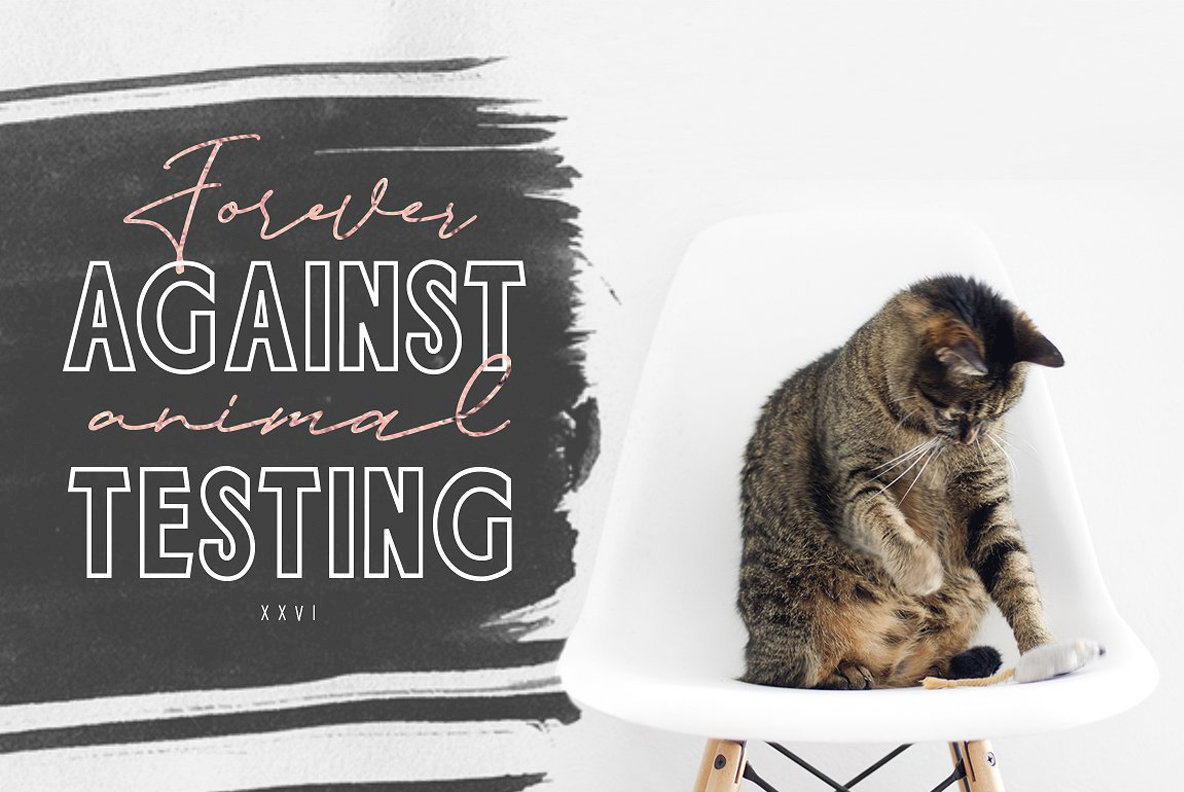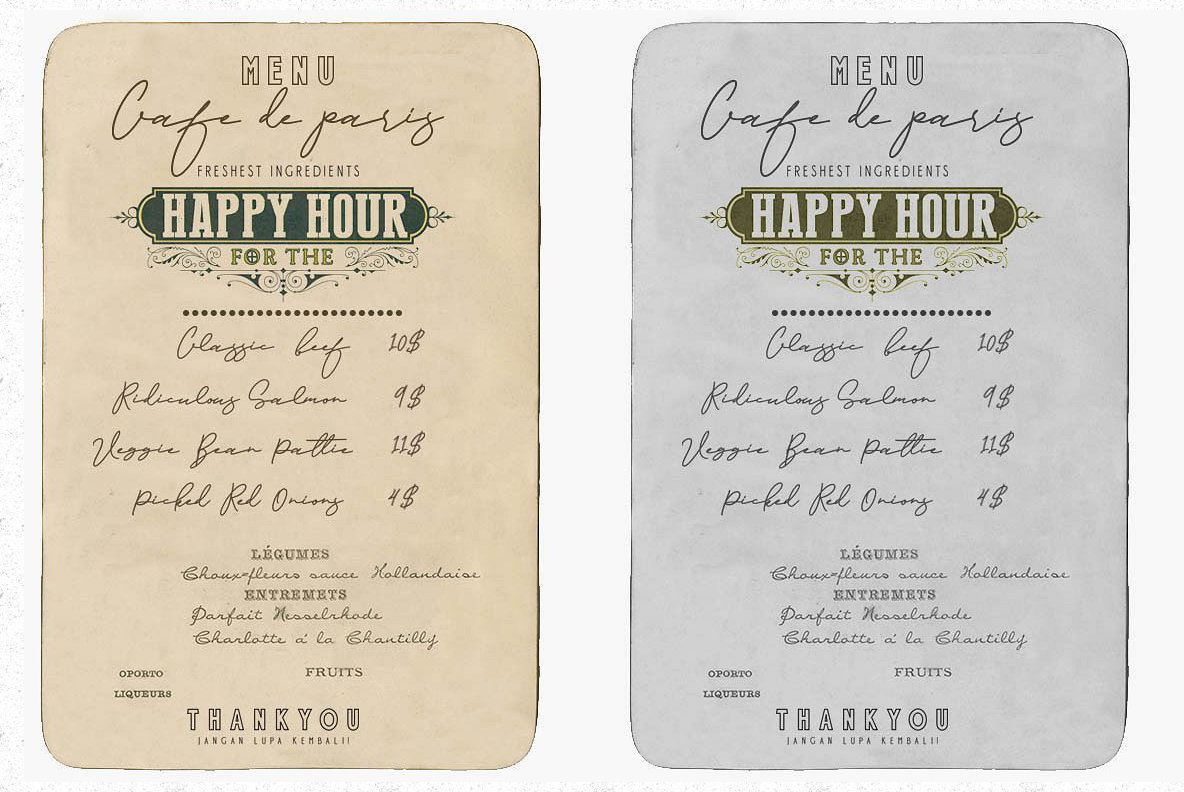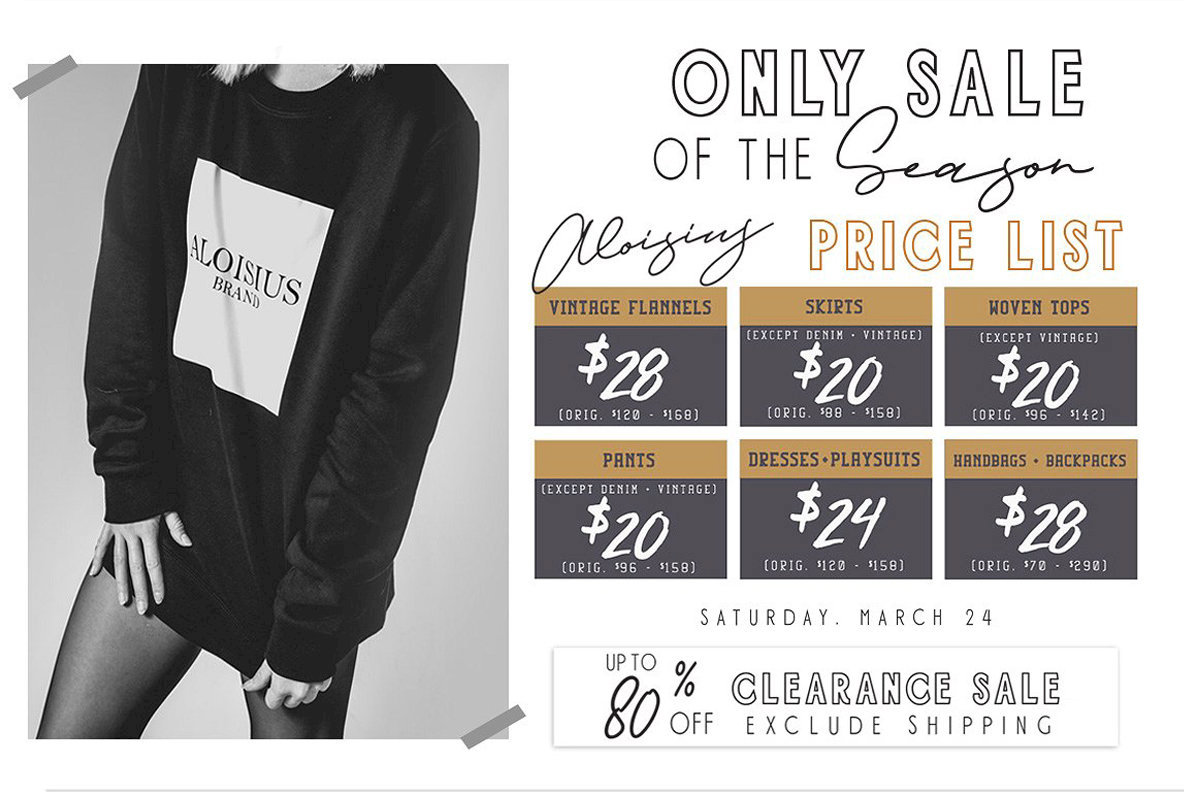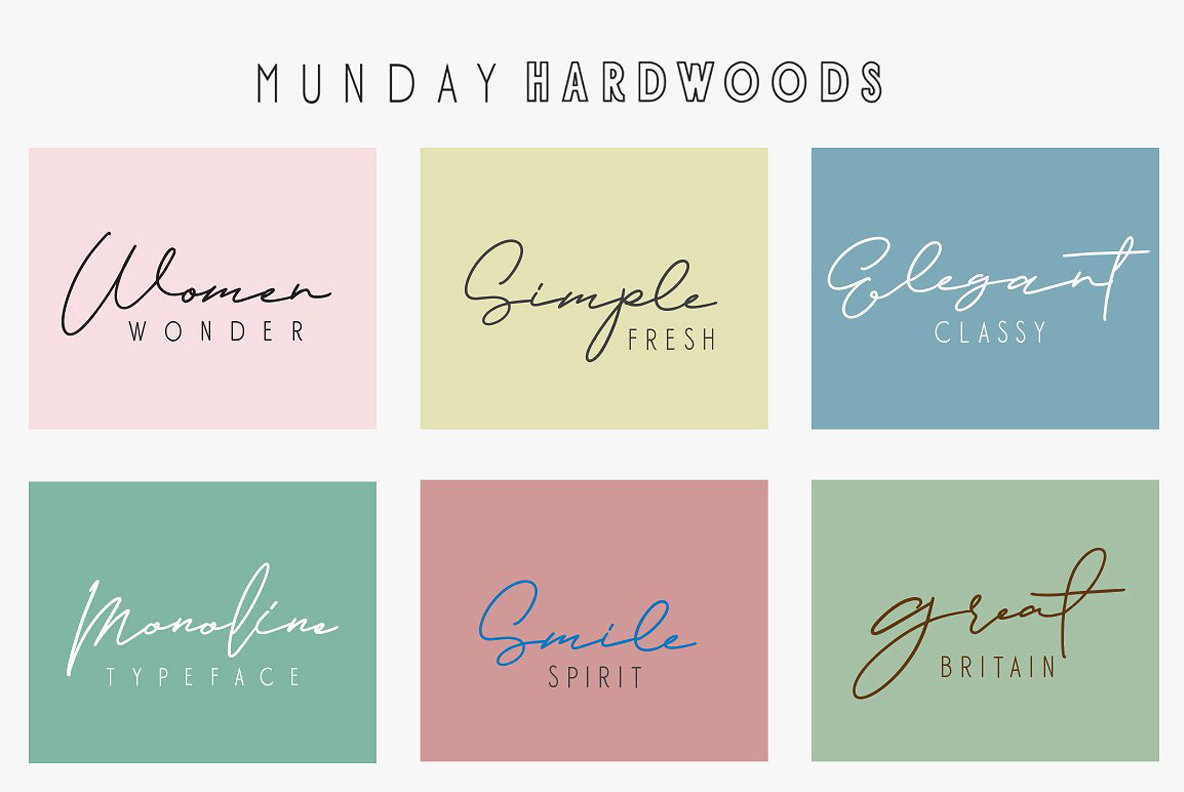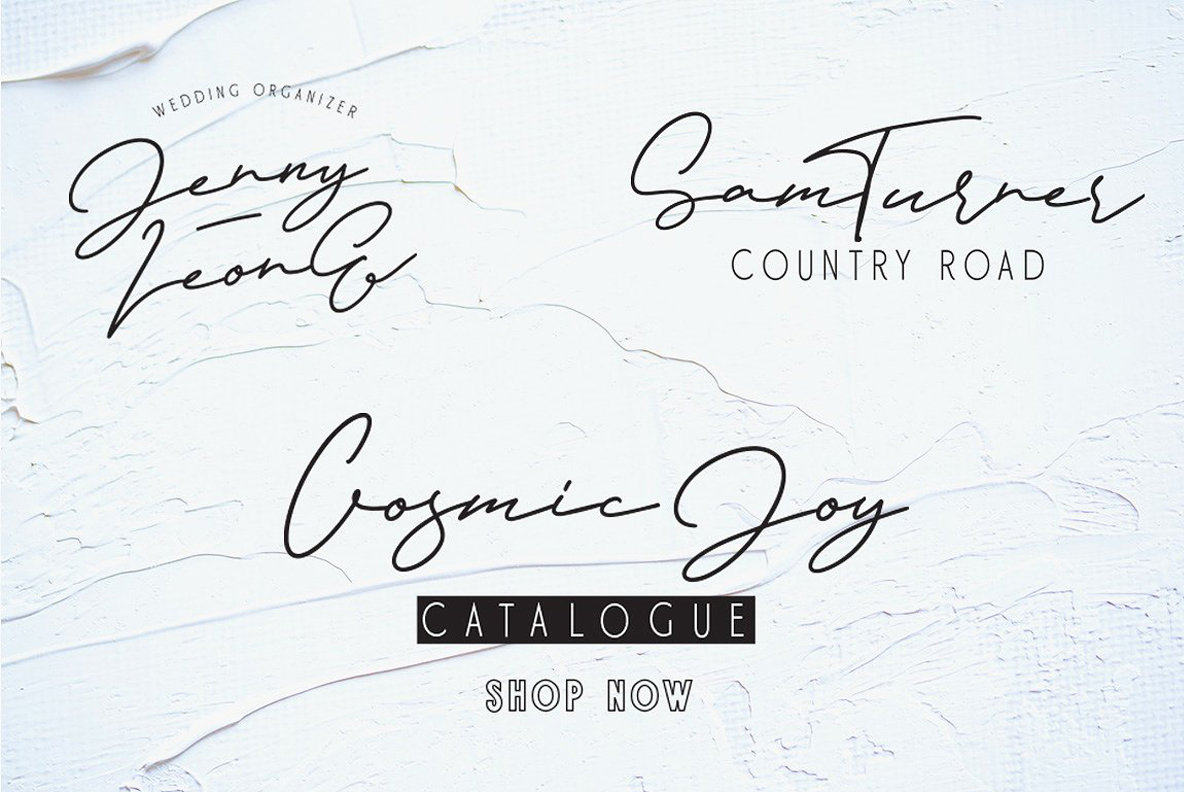
Jamsuit Duo Font
Jamsuit Outline
Jamsuit Sans Serif
Jamsuit Script
Proudly presents Jamsuit our latest font family typeface with monoline and sans Serif. The script also comes with Ligatures and Stylistic Alternates that will make the signature font more real. Jamsuit is a great choice fonts for: Wedding Invitation, quotes, Posters, Logos, Print Ads, Digital Ads, Promotion Product etc.
- Character set A-Z with special uppercase letters
- Stylistic Alternates And Ligatures
- Numerals & Punctuation